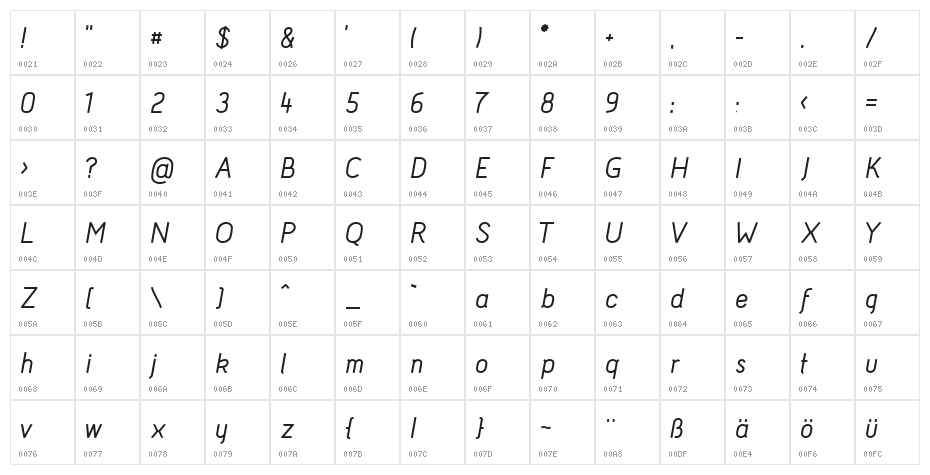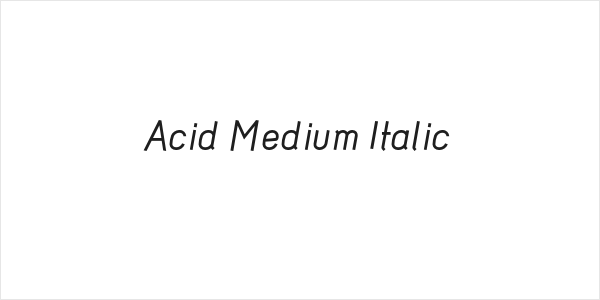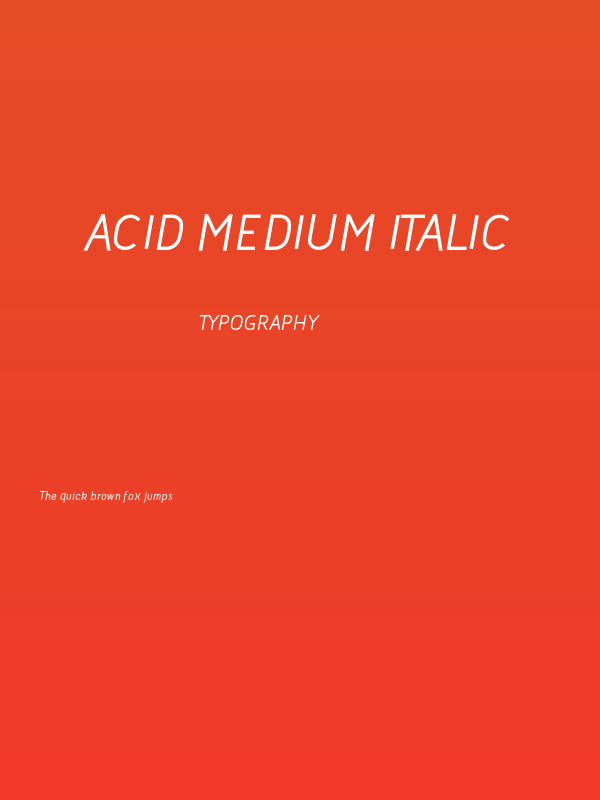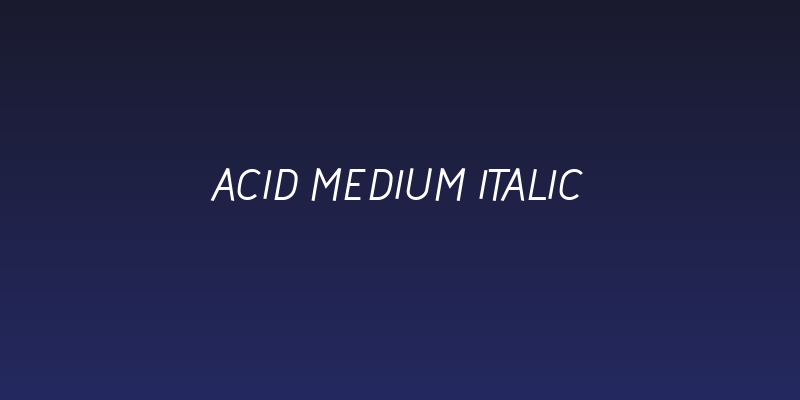
Acid Medium Italic Font
Acid Medium Italic Description
This font features a modern and sleek design with a slight italic slant, giving it a dynamic and forward-moving appearance. The characters are clean and well-defined, with a consistent stroke width that maintains readability across different sizes. The uppercase and lowercase letters are proportionate, and the numerals are clear and distinct. Special characters are included, providing versatility for various uses. The overall style is contemporary, making it suitable for a wide range of applications.
Proposed ProjectsIdeal for branding, advertising, and editorial design projects where a modern and dynamic look is desired.